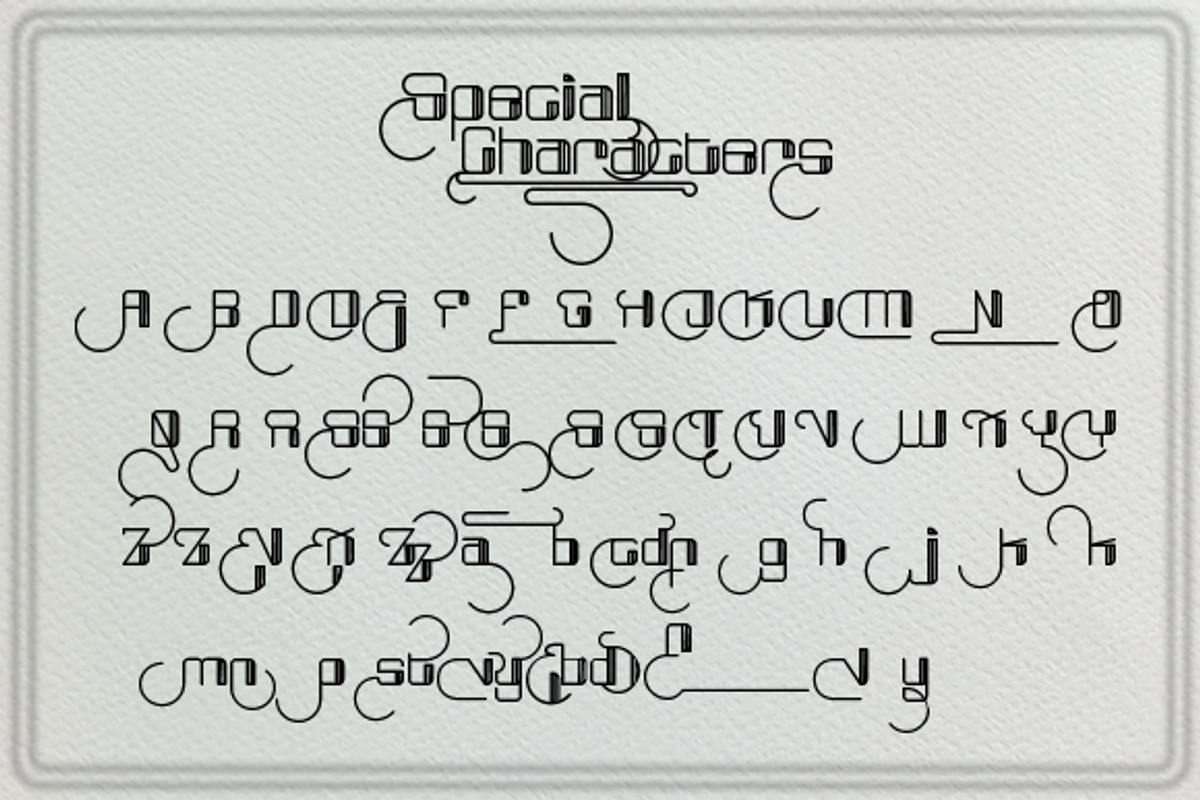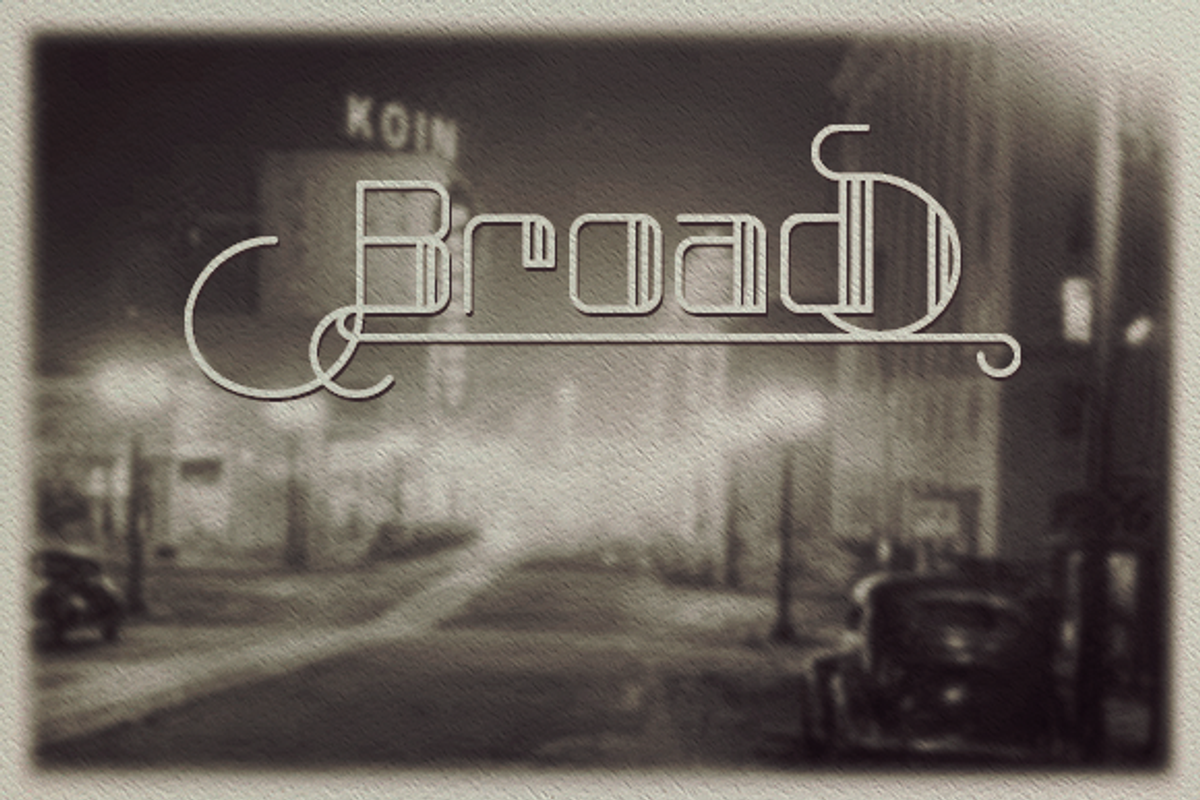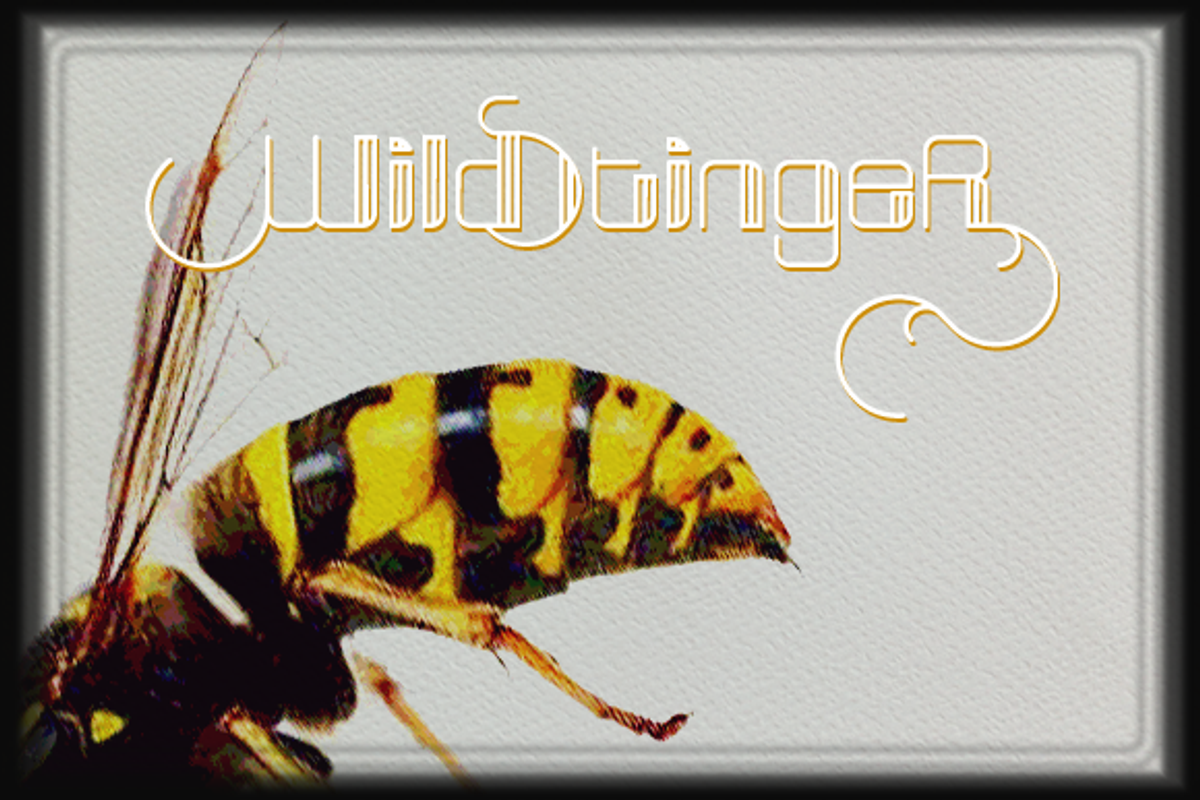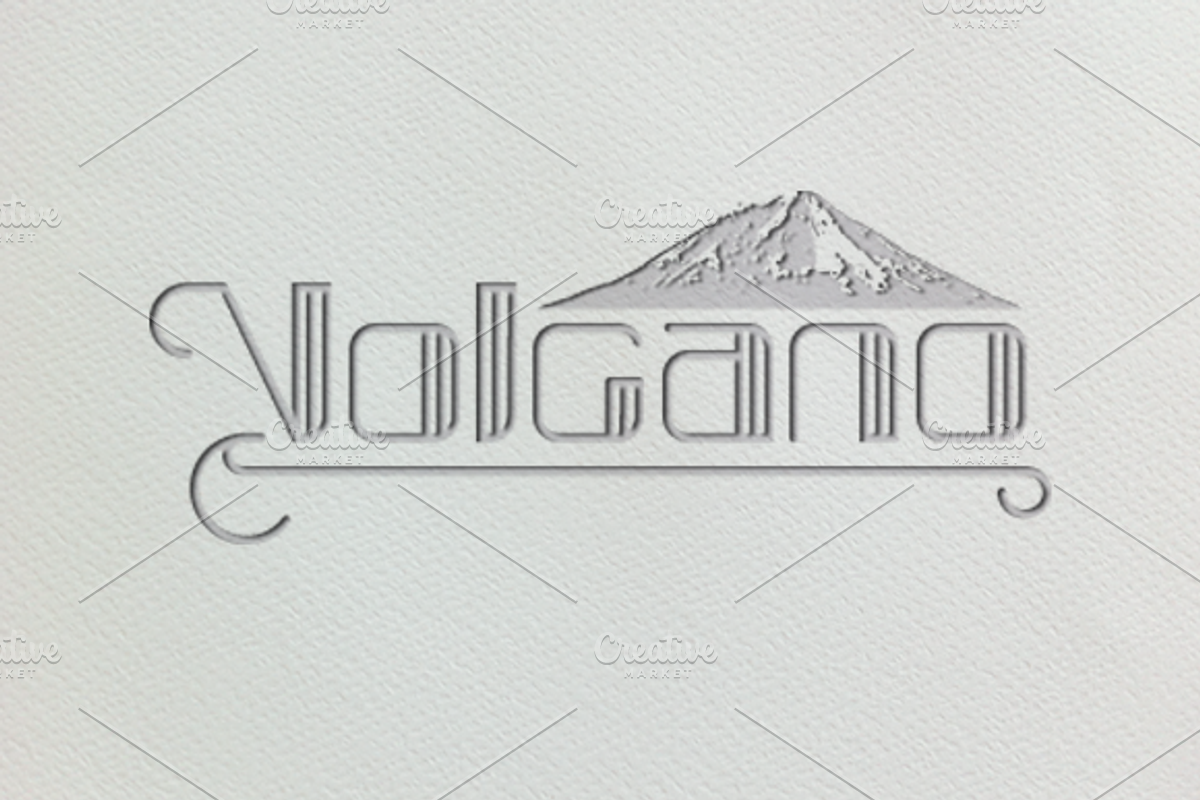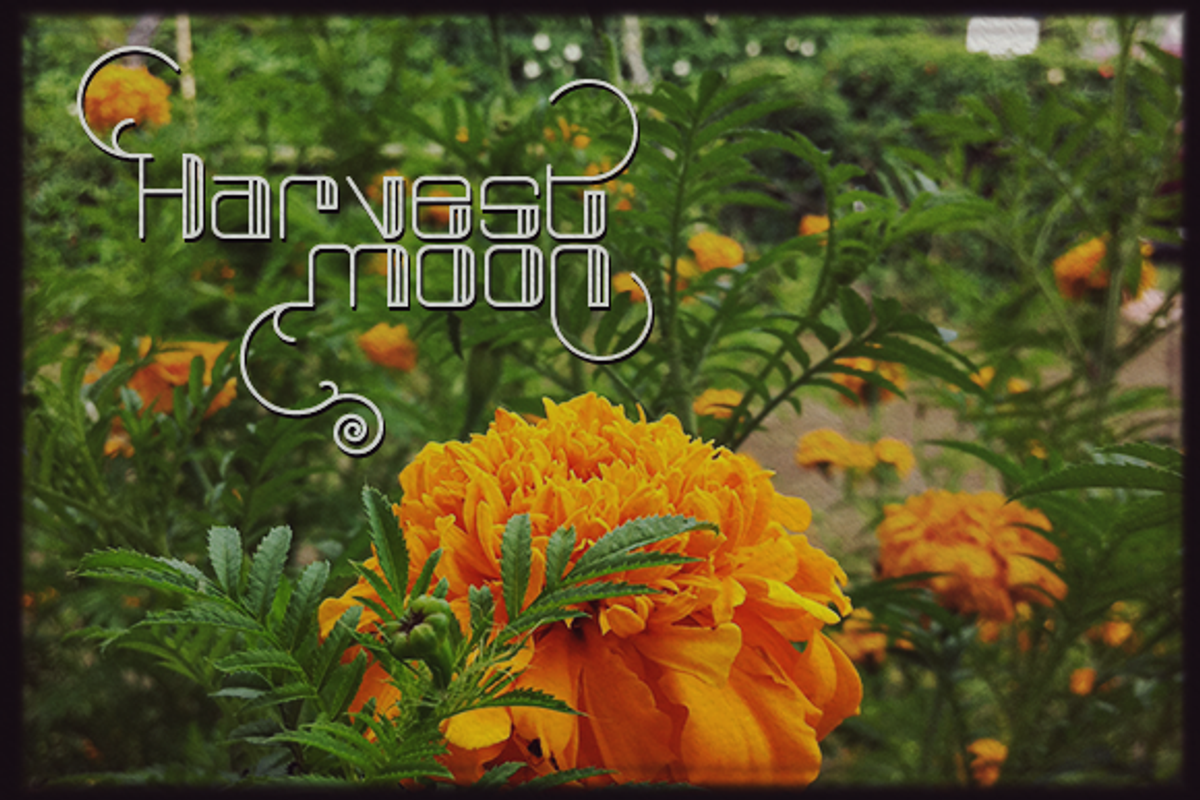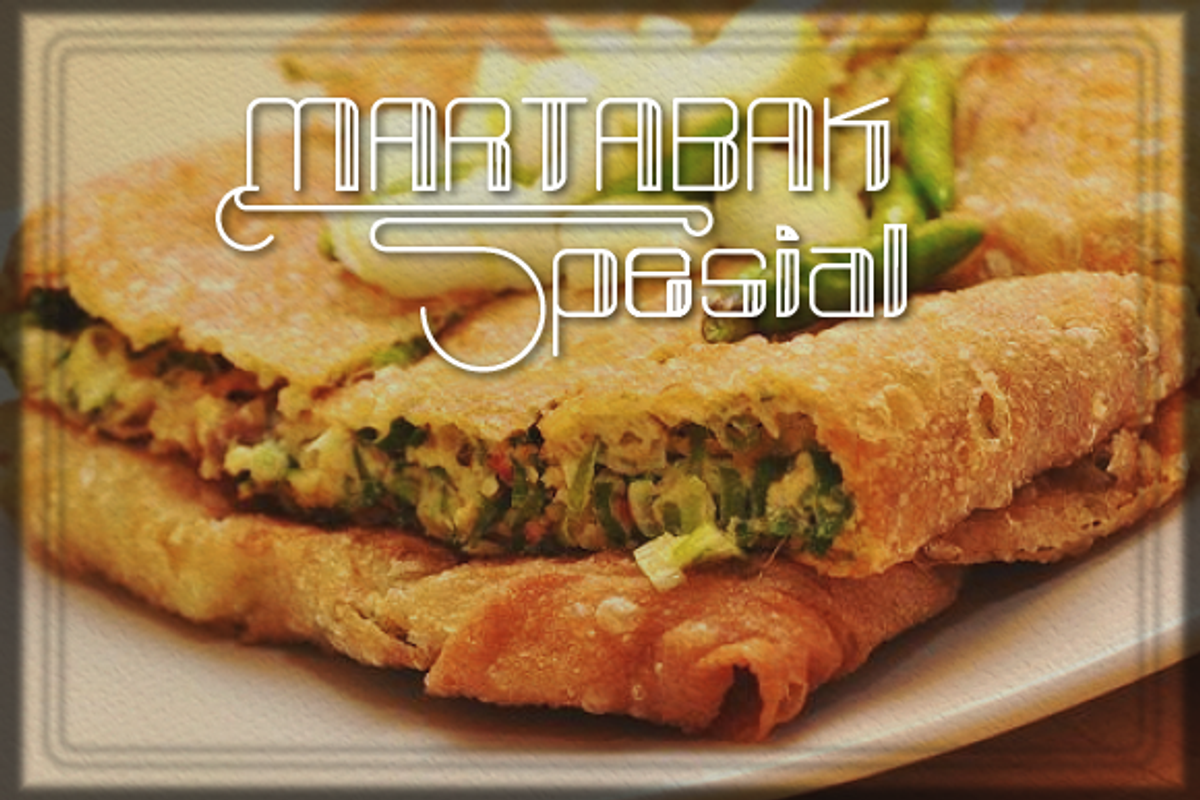
Broad font
Broad font by greatypes studio is a font selected for branding, posters, packaging, typography.
Why Broad font is worth a look
Broad font by greatypes studio fits naturally into Branding, posters, packaging, typography.